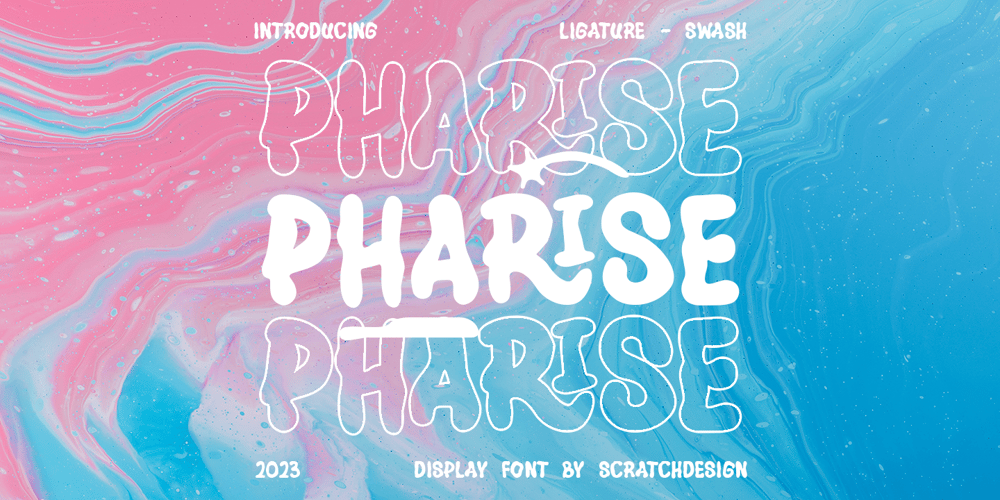
Pharise Font Family was designed by Gitayogi Irhandi and published by Scratch Design. Pharise contains 1 styles and family package options. Introducing Sharine! Our font is inspired by Y2K, a memory of the millennial era. This font has bold, retro, cute and dynamic characters that are perfect for creating a retro-futuristic-experimental vibe in your design. This font will be perfect for posters, packaging, invitations, branding, social media posts, headlines, and other designs.What you’ll get : All caps font in two styles (You can combine those two uppercase styles to make your design more stunning) Numbers & punctuation Multilingual support Ligatures Swashes Thank you for purchase!